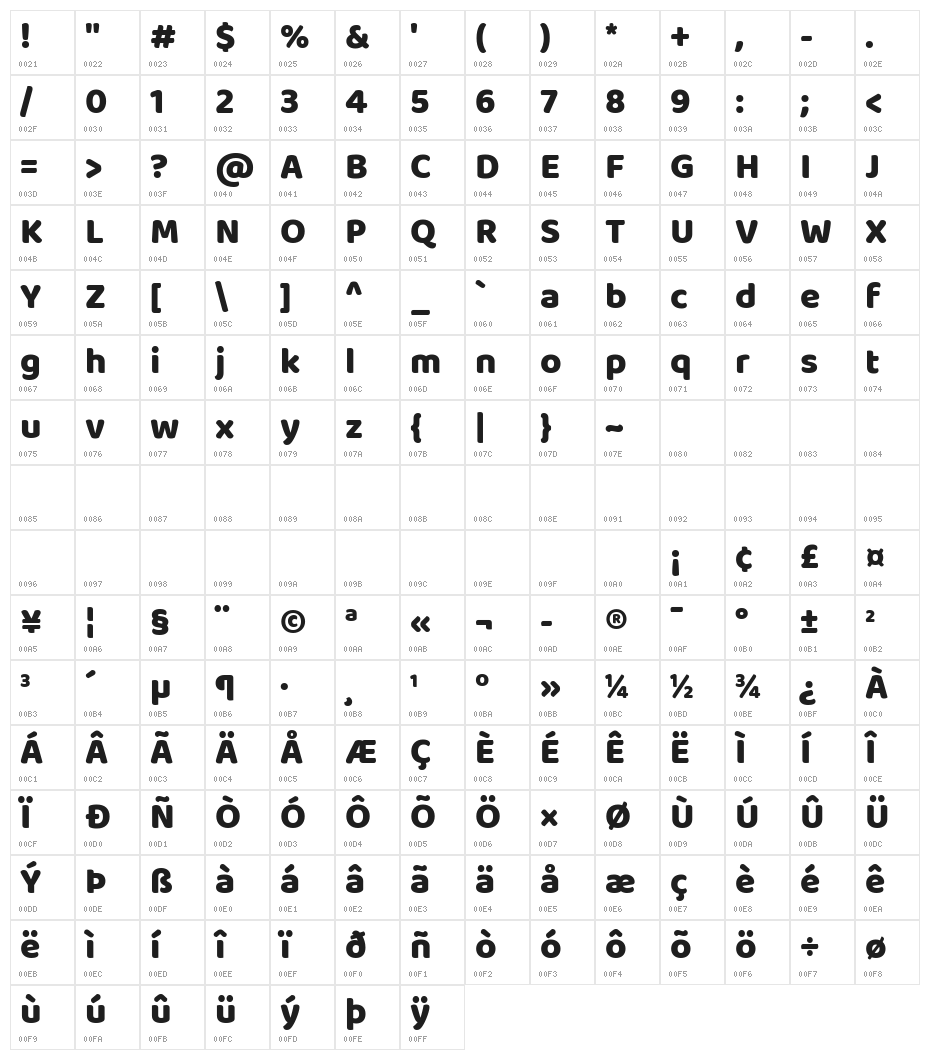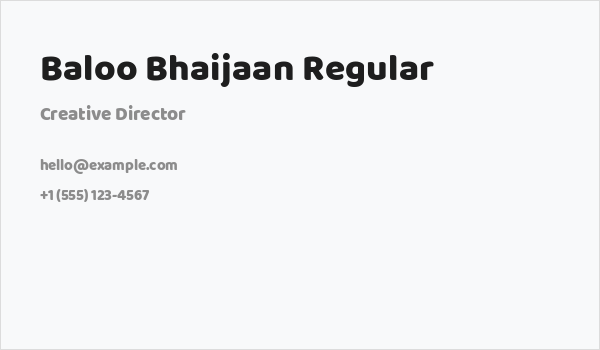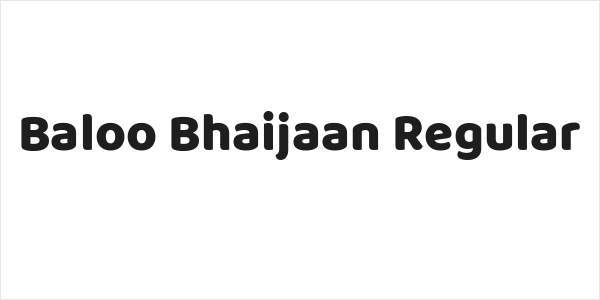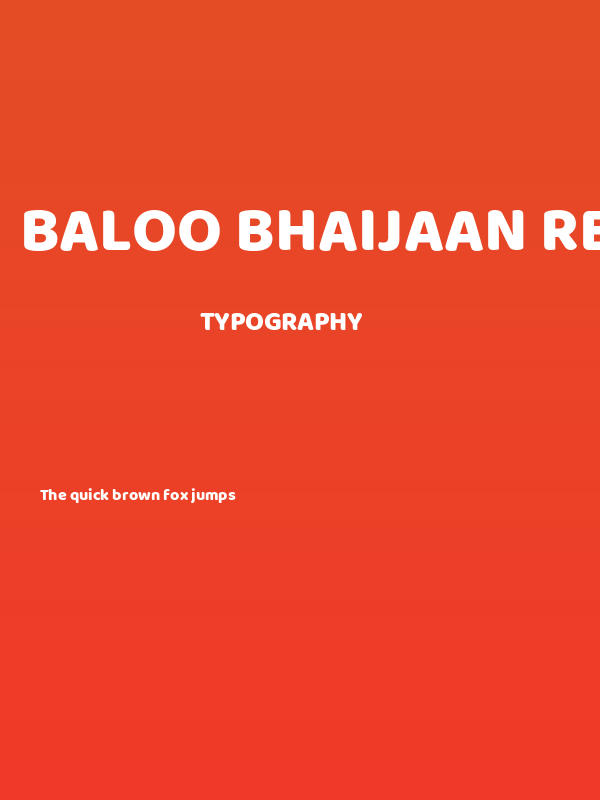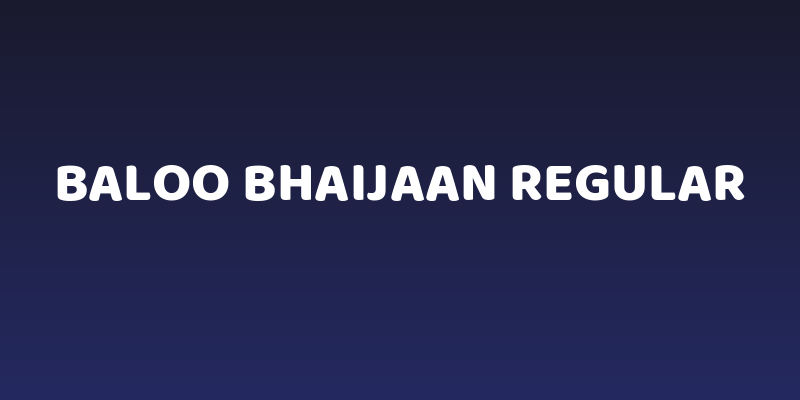
Baloo Bhaijaan Regular Font
Baloo Bhaijaan Regular Description
This font features a playful and rounded design, characterized by its bold and friendly appearance. The letters are well-proportioned with a consistent stroke width, giving it a uniform and cohesive look. The rounded edges and smooth curves contribute to its approachable and informal style, making it suitable for a variety of creative projects. The numerals and special characters maintain the same playful aesthetic, ensuring consistency across all text elements.
| Proposed Projects | Ideal for children's books, playful branding, casual invitations, and social media graphics. |